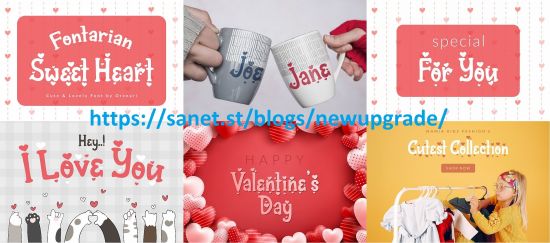
DesignOptimal - Fontarian Sweet Heart Font
If you need some lovely, unique, cute, and fun font asset? Here it is, Fontarian Sweet Heart font.
Fontarian Sweet Heart is a fun handwritting font which has 2 styles. The inspiration of this font is many lovely momments happen in our life.
It's perfect for any lovely, unique, cute, and fun projects. And your projects will need this :D